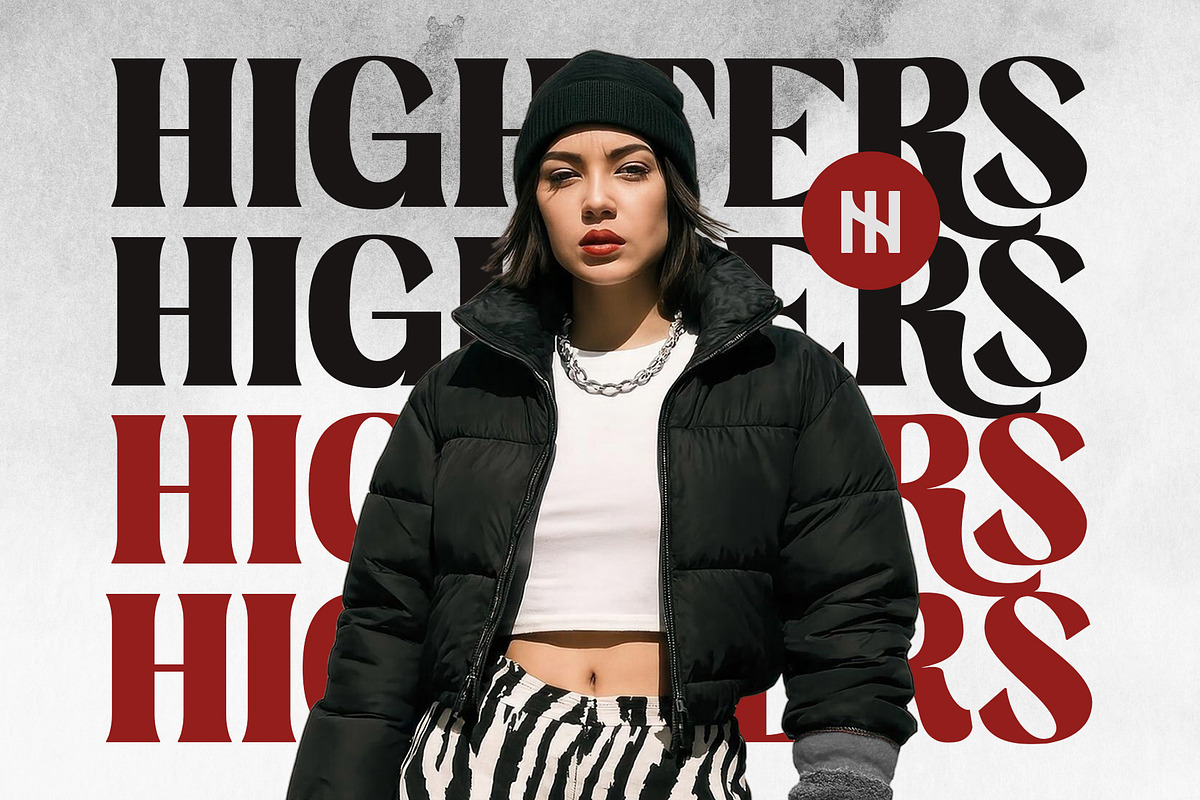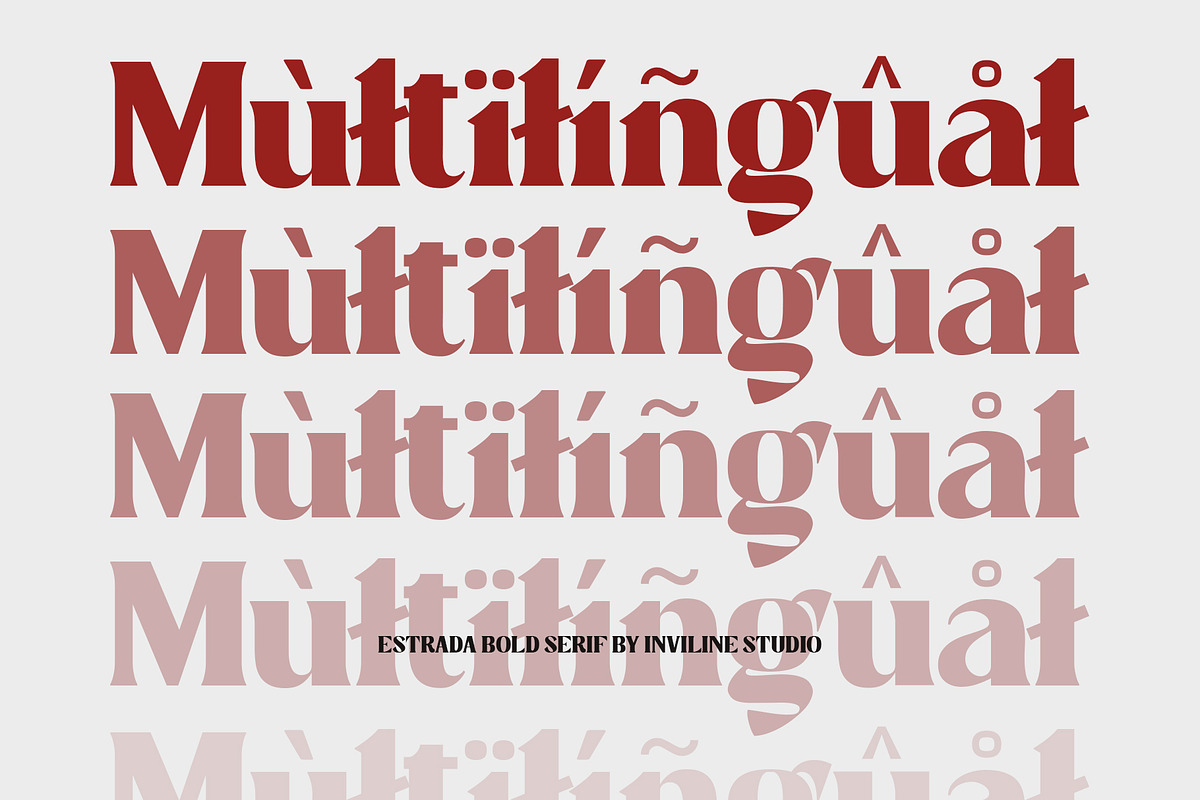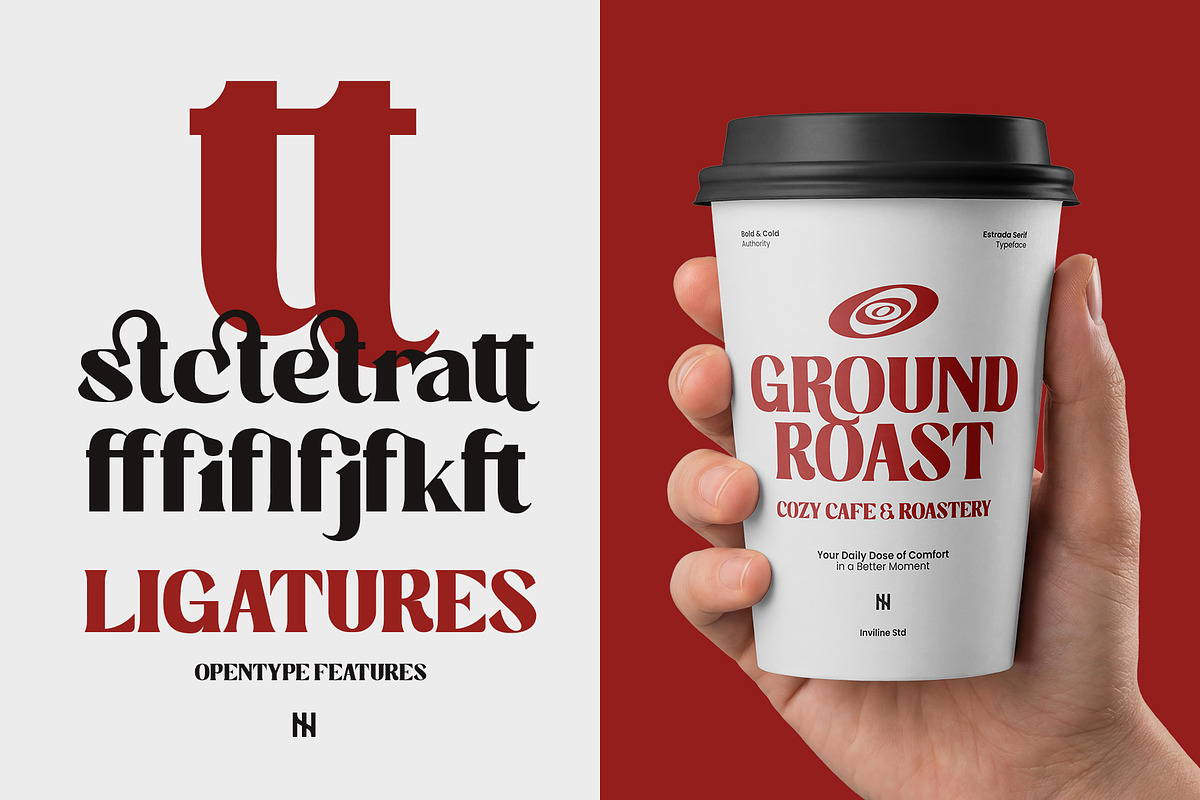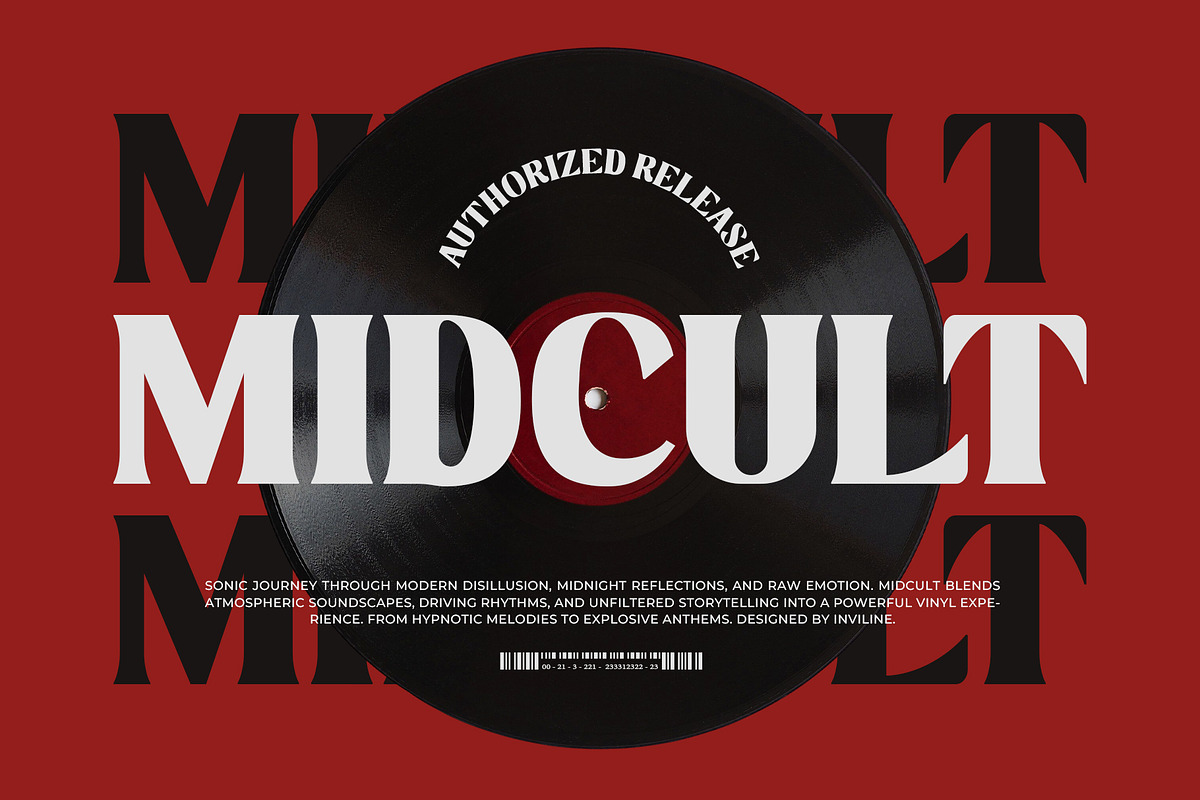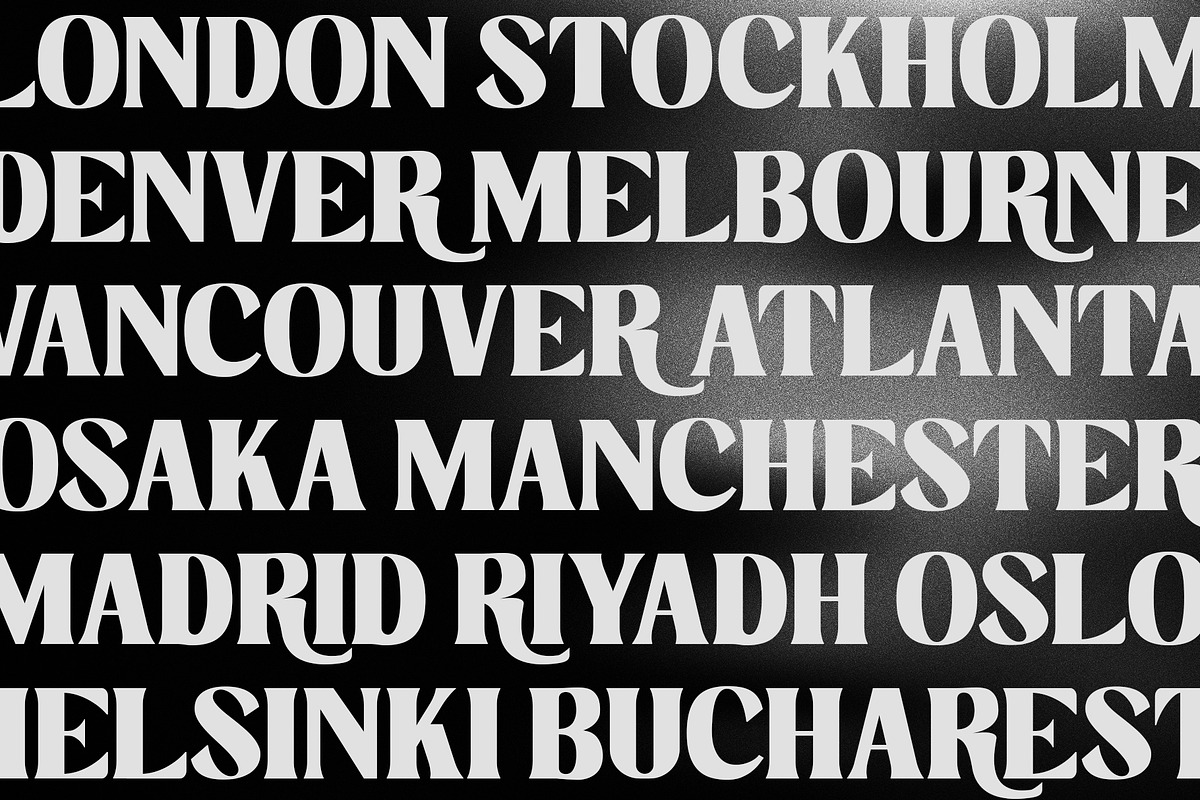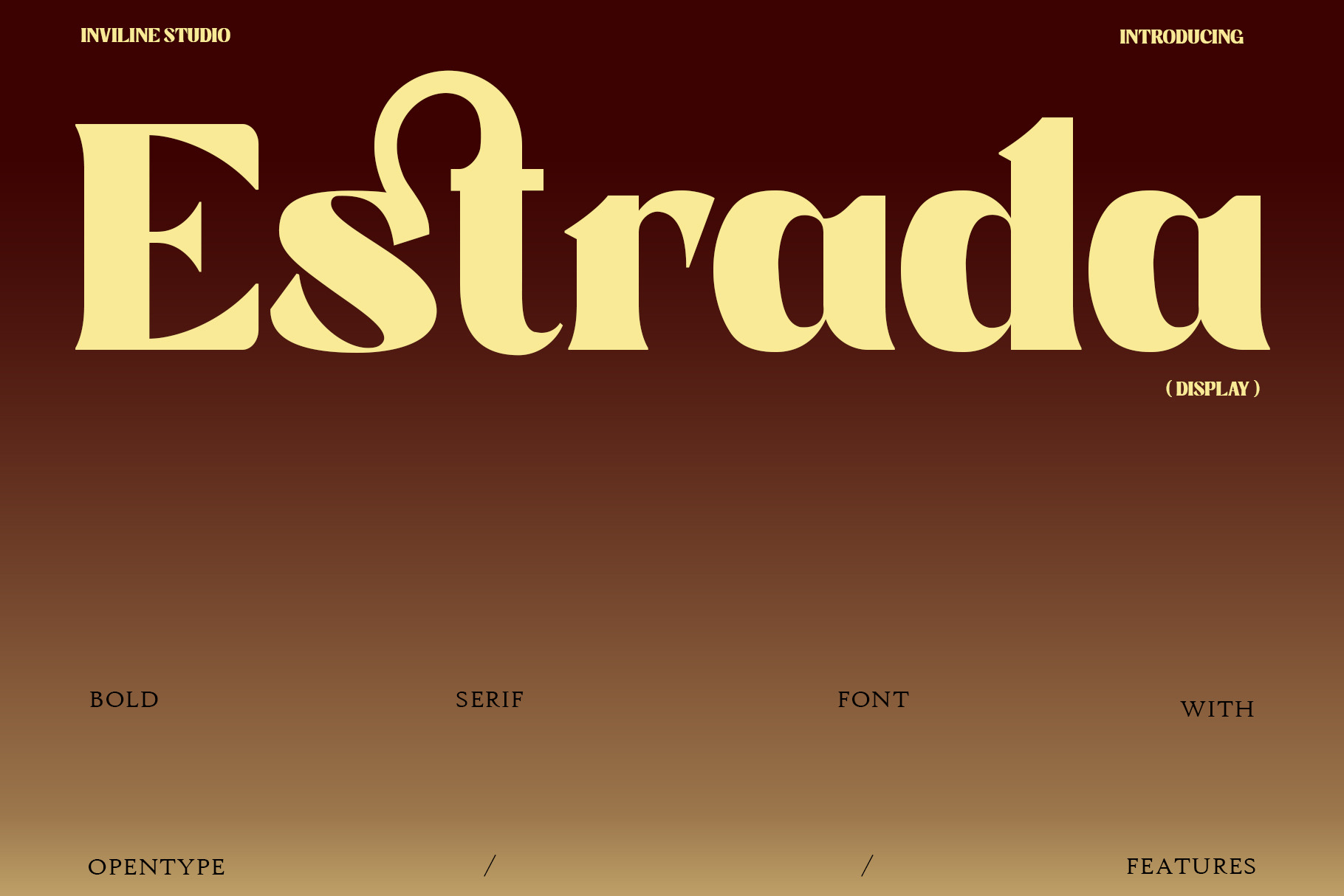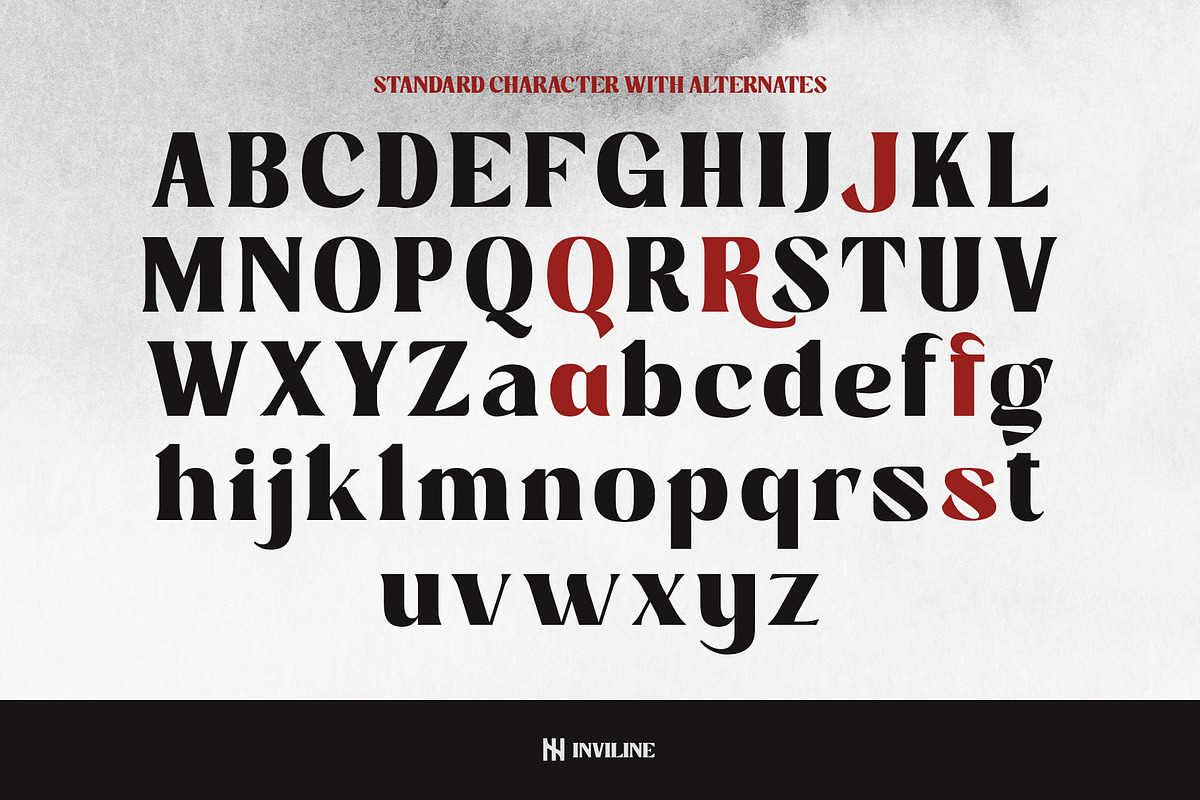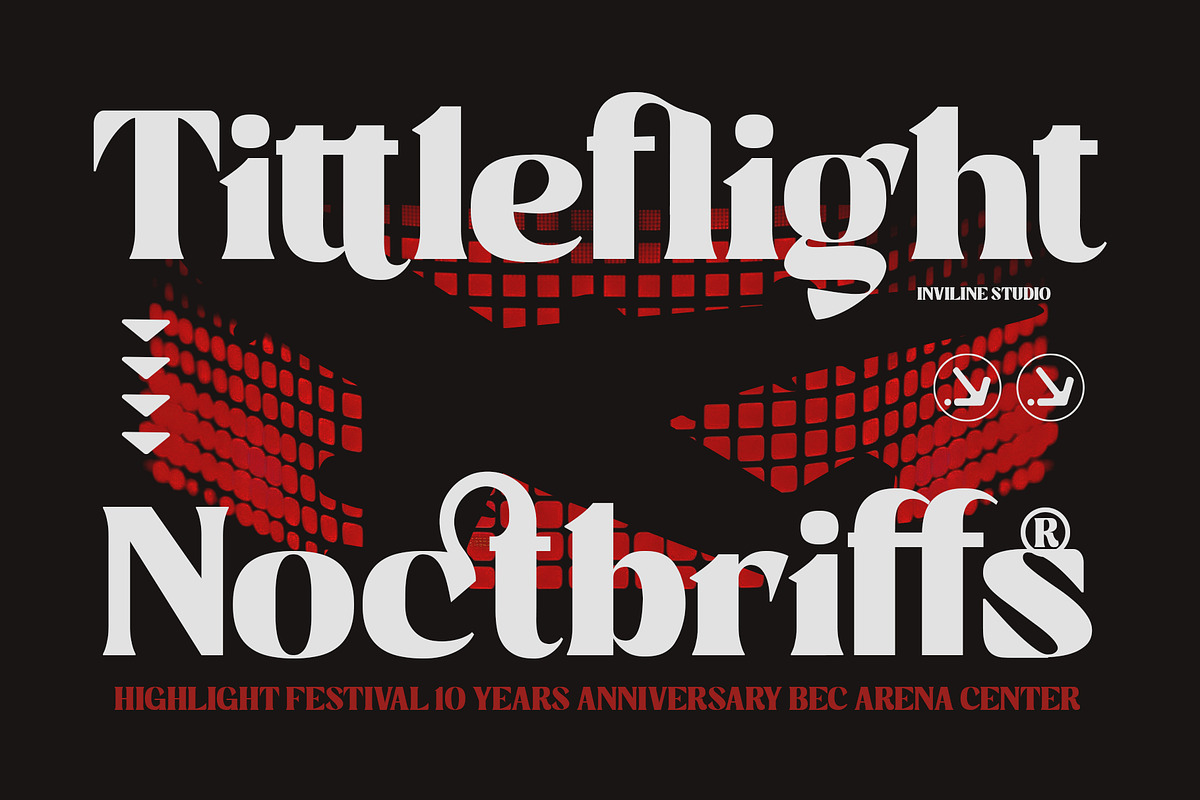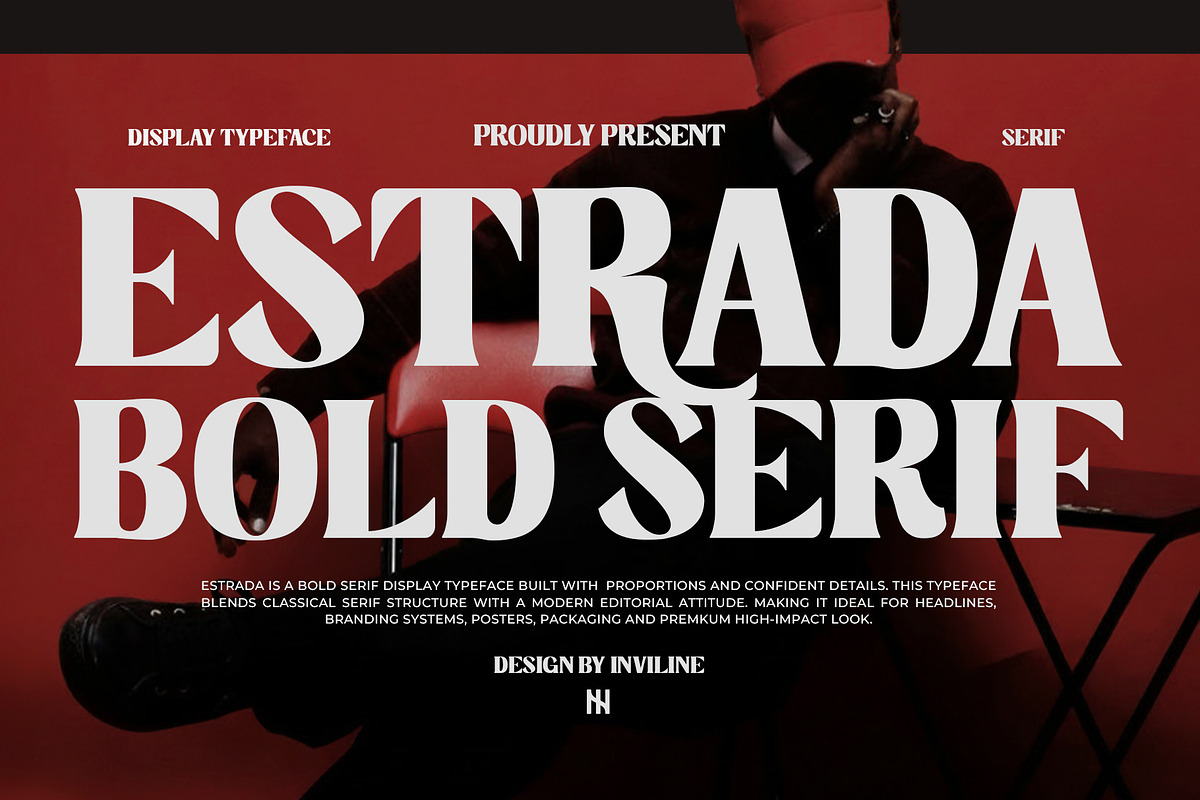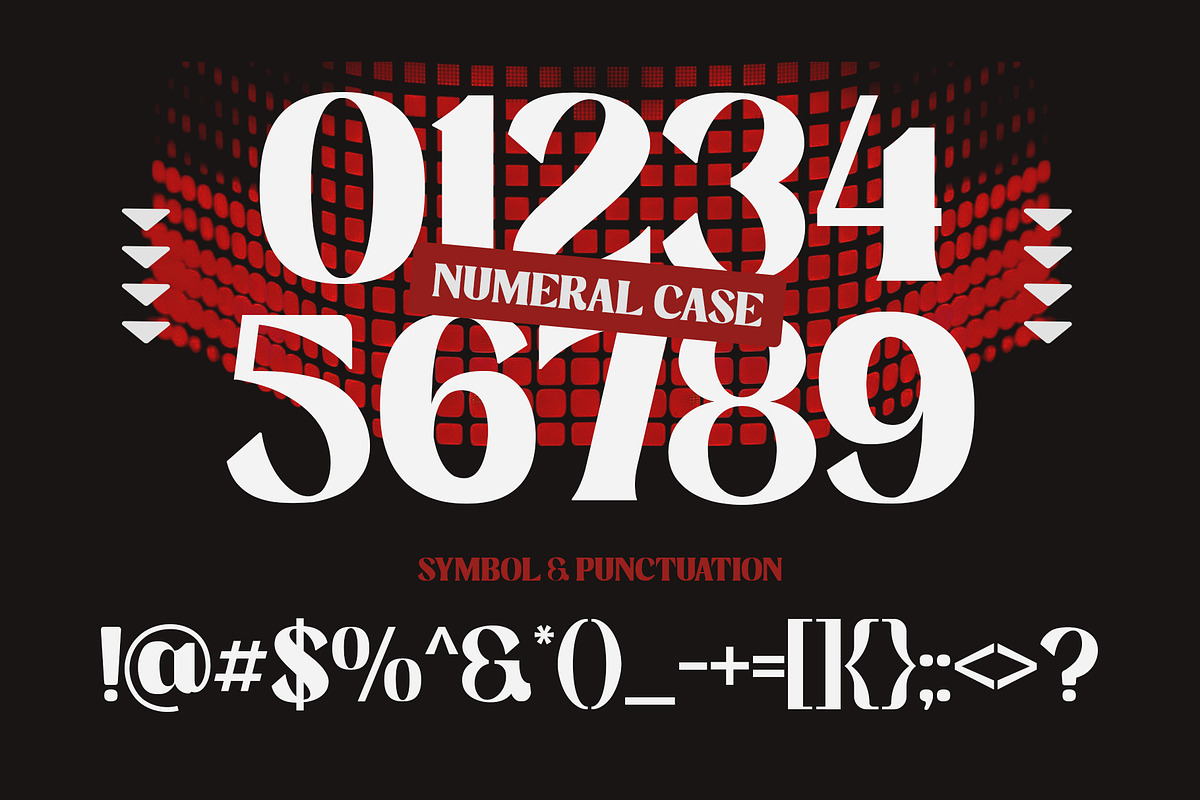
Estrada - Serif Font
Estrada is a bold serif display typeface created for striking headlines and confident visual identities. It combines classic serif proportions with sharp details, dramatic contrast, and a modern editorial attitude.
Its strong letterforms bring authority, sophistication, and high visual impact to fashion campaigns, magazine covers, luxury branding, posters, packaging, and contemporary editorial layouts.
Estrada blends traditional serif structure with expressive display typography. Its high-contrast strokes, sculpted curves, and sharp terminals create an elegant yet commanding personality.
Designed primarily for large-scale applications, Estrada performs beautifully in headlines, mastheads, logos, short statements, and premium brand compositions. It can be paired with a clean sans-serif typeface for body copy or used alone as the central visual element.
The font works especially well in monochrome layouts, dramatic photography, fashion editorials, cinematic posters, luxury packaging, and modern cultural campaigns.
Bold editorial serif design
High-contrast thick and thin strokes
Classic proportions with a contemporary attitude
Sharp terminals and sculpted curves
Strong visual impact at large sizes
Complete numerals
Standard symbols and punctuation
Suitable for premium print and digital projects
Ideal for headlines, mastheads, logos, and short statements
Works well with fashion, photography, and editorial layouts
Clear and recognizable display letterforms
Designed for modern luxury branding
Stylistic Alternates: no dedicated alternate characters are visibly confirmed in the supplied preview
Ligature pairs: no dedicated ligature set is visibly confirmed in the supplied preview
Ideal For / Use Cases
Editorial headlines
Magazine covers
Fashion campaigns
Luxury branding
Premium logo design
Poster layouts
Album artwork
Book covers
Cultural event posters
Advertising campaigns
Product packaging
Cosmetic branding
Fragrance packaging
Boutique identities
Restaurant branding
Exhibition graphics
Photography portfolios
Social media campaigns
Website hero sections
Film titles
Art direction projects
Corporate presentations
Lookbook layouts
Promotional banners
High-end visual identities
Use Estrada at medium or large sizes to showcase its stroke contrast and distinctive serif details. It is most effective for headlines, names, logos, and short text rather than long paragraphs.
Pair it with a clean sans-serif font for captions and body copy. Generous spacing and minimal compositions will help preserve its premium editorial character.